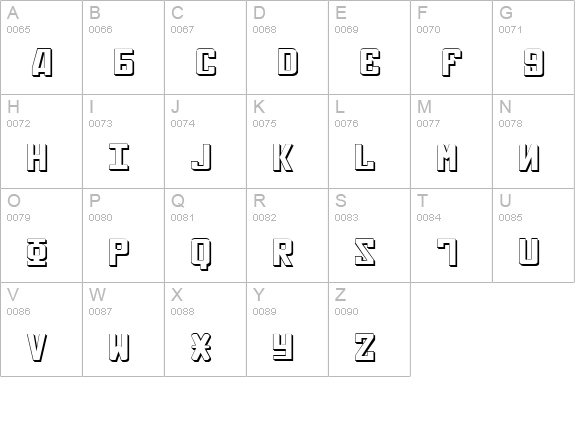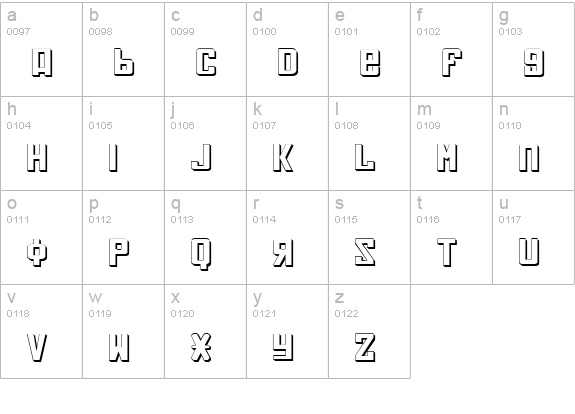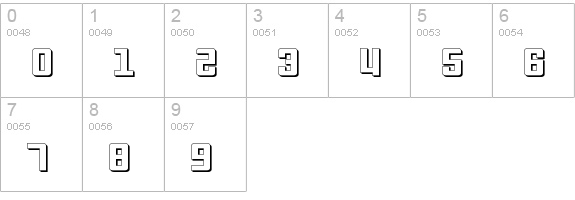
Soviet Expanded 3D is a distinctive, extended-width variant in the Soviet typeface family \xE2\x80\x94 well suited to design and typography projects.
Introducing the captivating Soviet Expanded 3D font, a bold and powerful typeface that combines the iconic elements of the Soviet era with a modern twist. This font is the perfect choice for those seeking to add a touch of nostalgia and strength to their designs. Created with meticulous attention to detail, Soviet Expanded 3D font boasts a unique 3D effect, adding depth and dimension to every character. The sharp edges and geometric shapes evoke a sense of authority and resilience, making it ideal for conveying messages of strength, unity, and determination. Whether you're designing a poster, logo, headline, or any other creative project, Soviet Expanded 3D font will instantly grab attention and leave a lasting impression. Its bold and commanding presence will ensure that your message is delivered with impact and conviction. The best part? Soviet Expanded 3D font is available for free download exclusively at FontsMarket.com. This means that you can unleash your creativity without worrying about breaking the bank. With just a few clicks, you'll have access to this remarkable font, ready to elevate your designs to new heights. So don't miss out on this extraordinary opportunity to enhance your visual communication with the Soviet Expanded 3D font. Download it for free today at FontsMarket.com and take your designs to the next level. Embrace the power of the past while embracing the future, and let your creativity soar with this remarkable typeface.